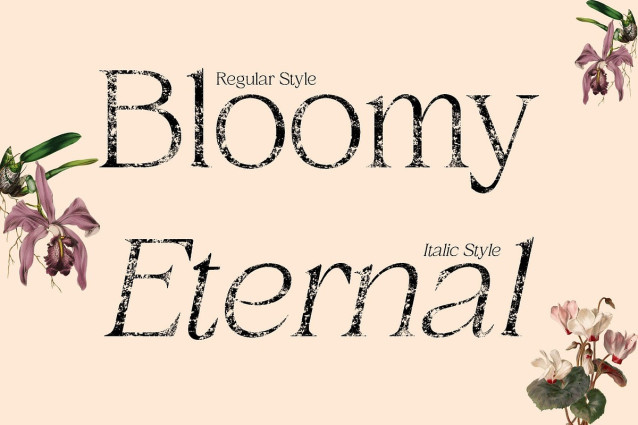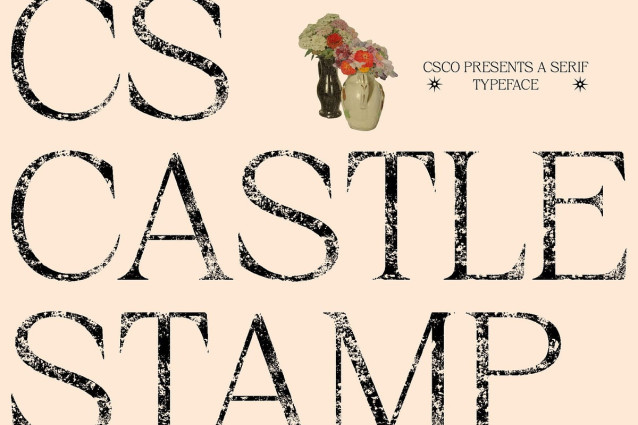
CS Castle Stamp Font
CS Castle Stamp Font: Luxury with a Vintage Edge Modern Serif with Stamp Effect This is a modern serif font defined by sharp angles and graceful curves. Its refined structure conveys elegance and confidence, while the stamped texture introduces a tactile, handmade quality. This balance of sophistication and imperfection makes it both luxurious and approachable. Graceful Angles for Confident Style The strong angular design of communicates power and precision. These clean, confident letterforms bring authority to any text, making them perfect for projects that require a bold and high-class aesthetic. At the same time, their graceful proportions maintain readability and timeless charm. Stamped Texture for Distinctive Character The unique stamp-like finish sets fonts apart. Each character carries subtle irregularities that add vibrancy and visual depth, giving the impression of classic printing methods. This textured detail ensures that every design feels authentic, expressive, and rich with personality. Ideal for High-End and Editorial Use Perfect for luxury branding, fashion packaging, or stylish editorial layouts, this font combines elegance with vintage flair. Its blend of modern serif sophistication and handmade texture makes it versatile for logos, book titles, magazines, and high-impact display designs. Whatever the application, this font exudes confidence and refinement. Download Type Speciment: — What you get : – CS Castle Stamp Regular – CS Castle Stamp Italic Features : – Uppercase and lowercase characters – Numerals and Punctuation (OpenType Standard) – Accents (Supports Multilingual Characters) – PUA Encoding — You can use this typeface without needing any specialized software. — If you have any inquiries or need assistance, please feel free to contact us. We appreciate your support in enhancing your creative projects! Best regards, Craft Supply Co.